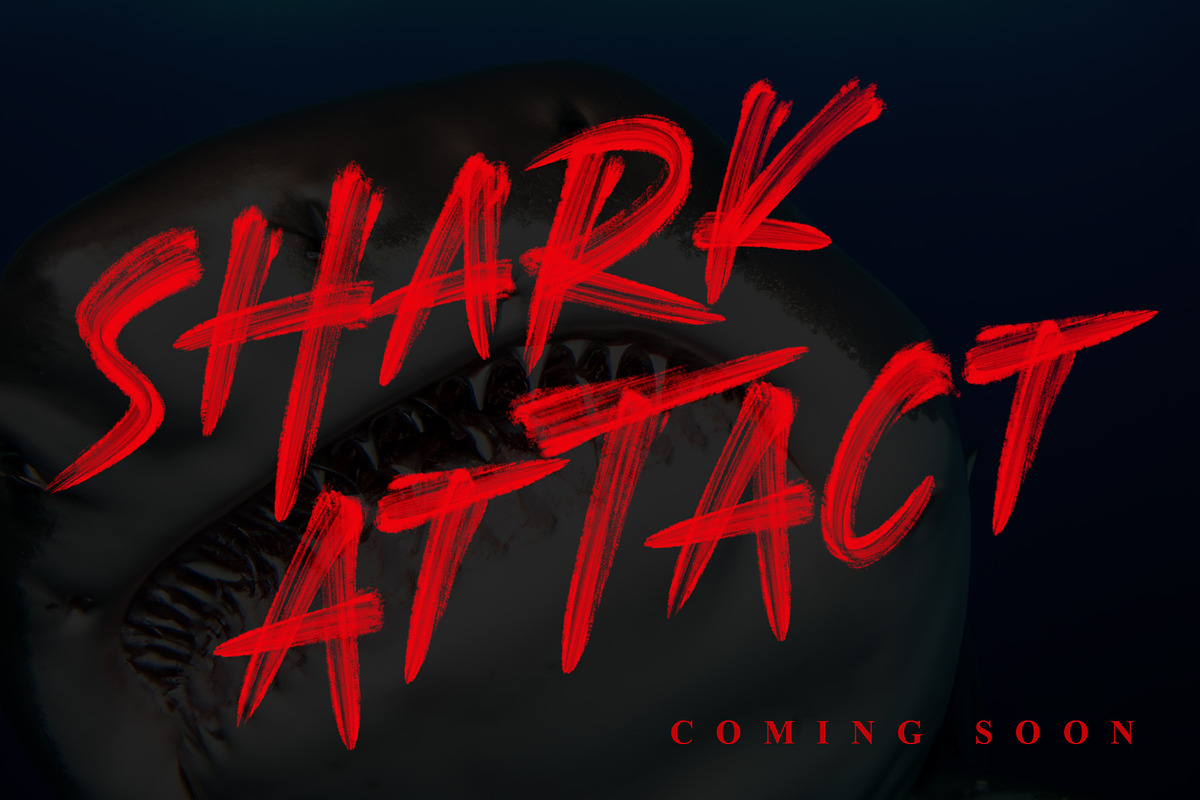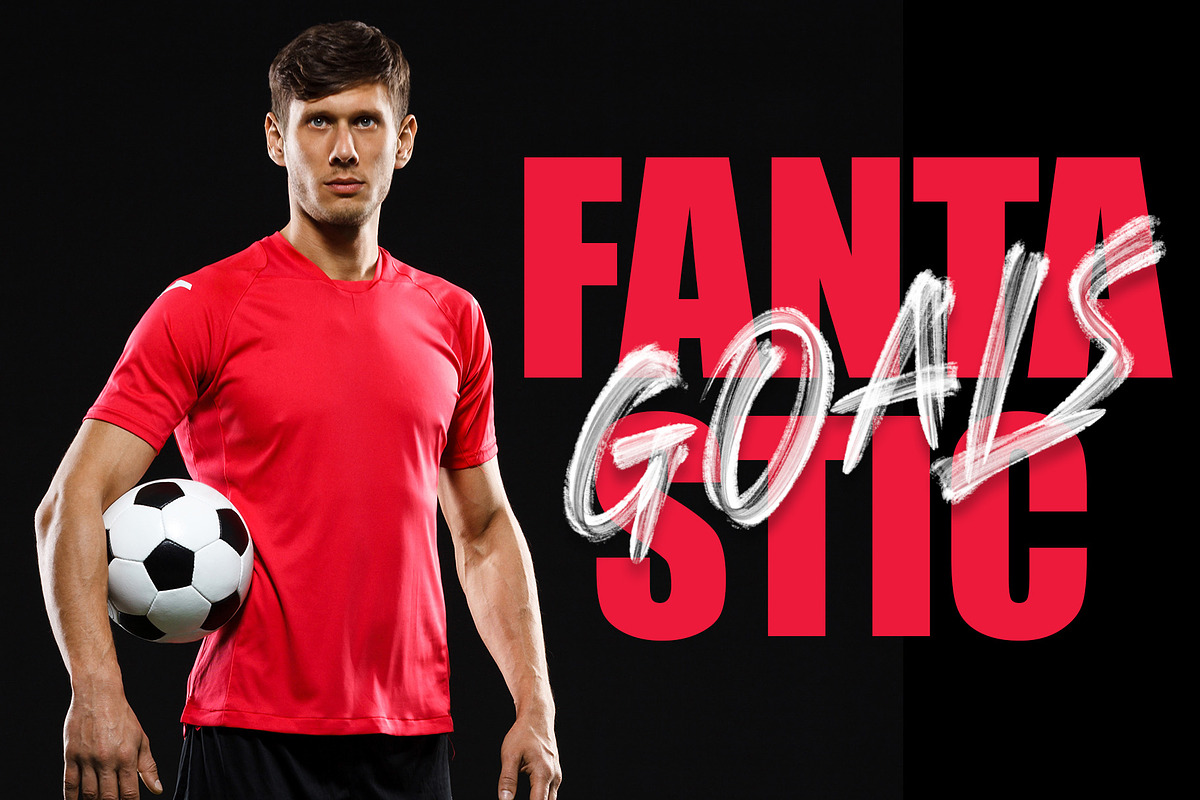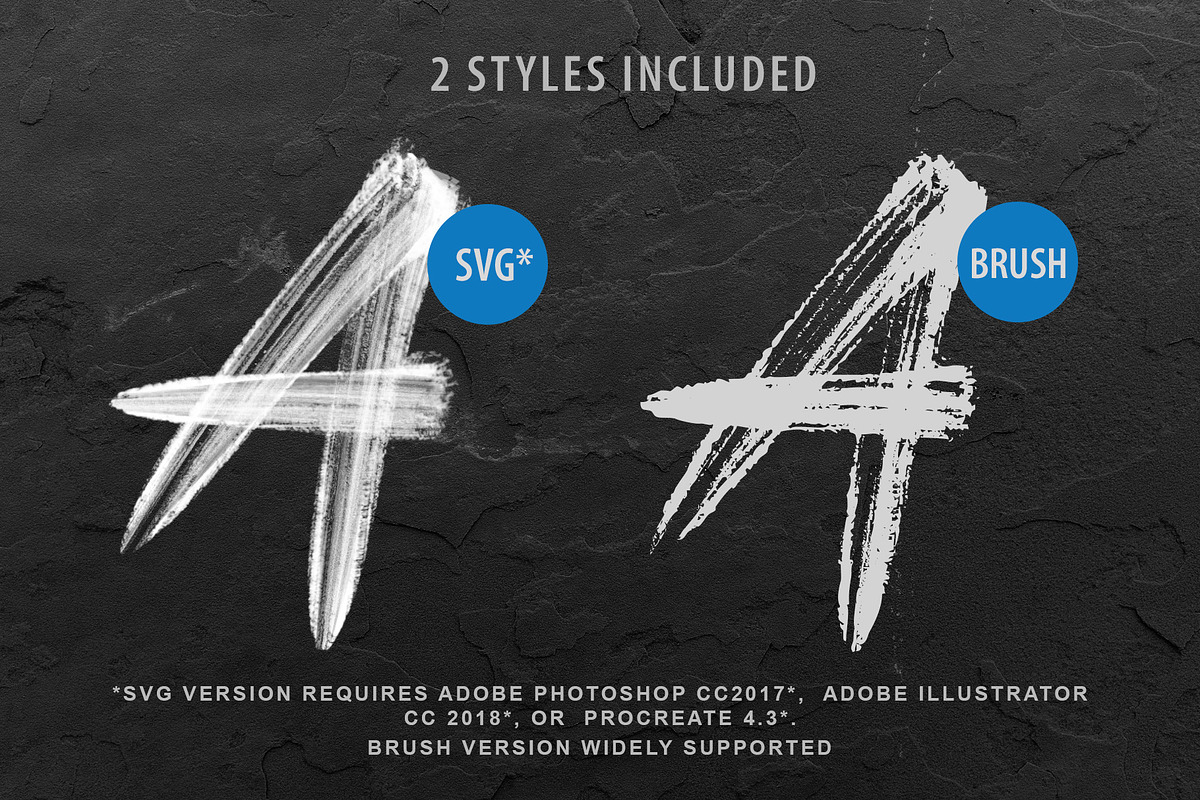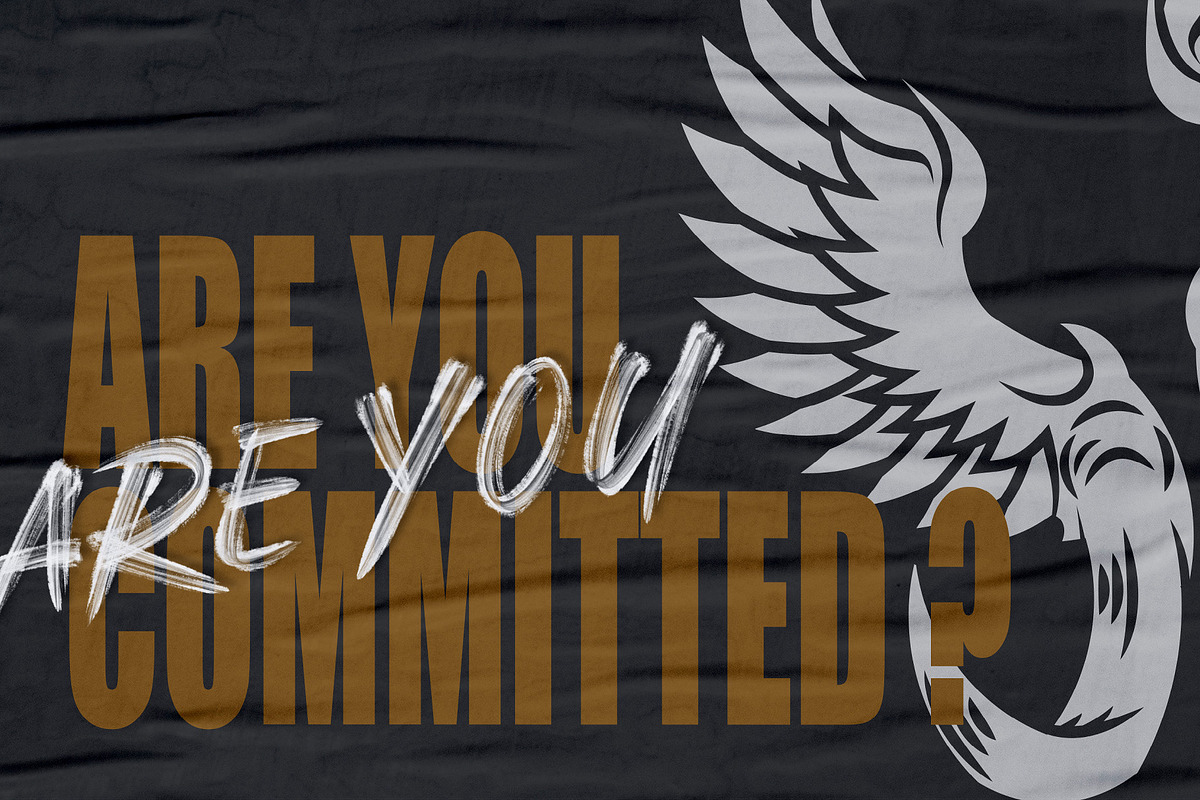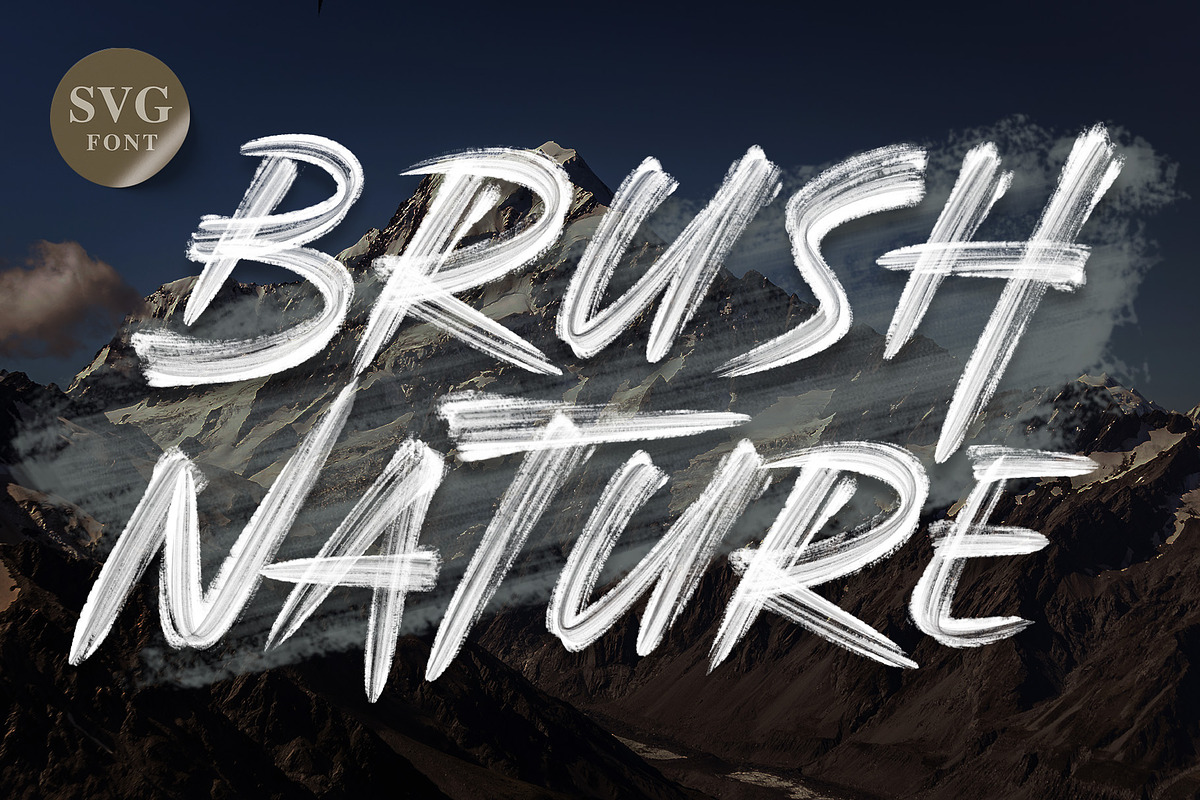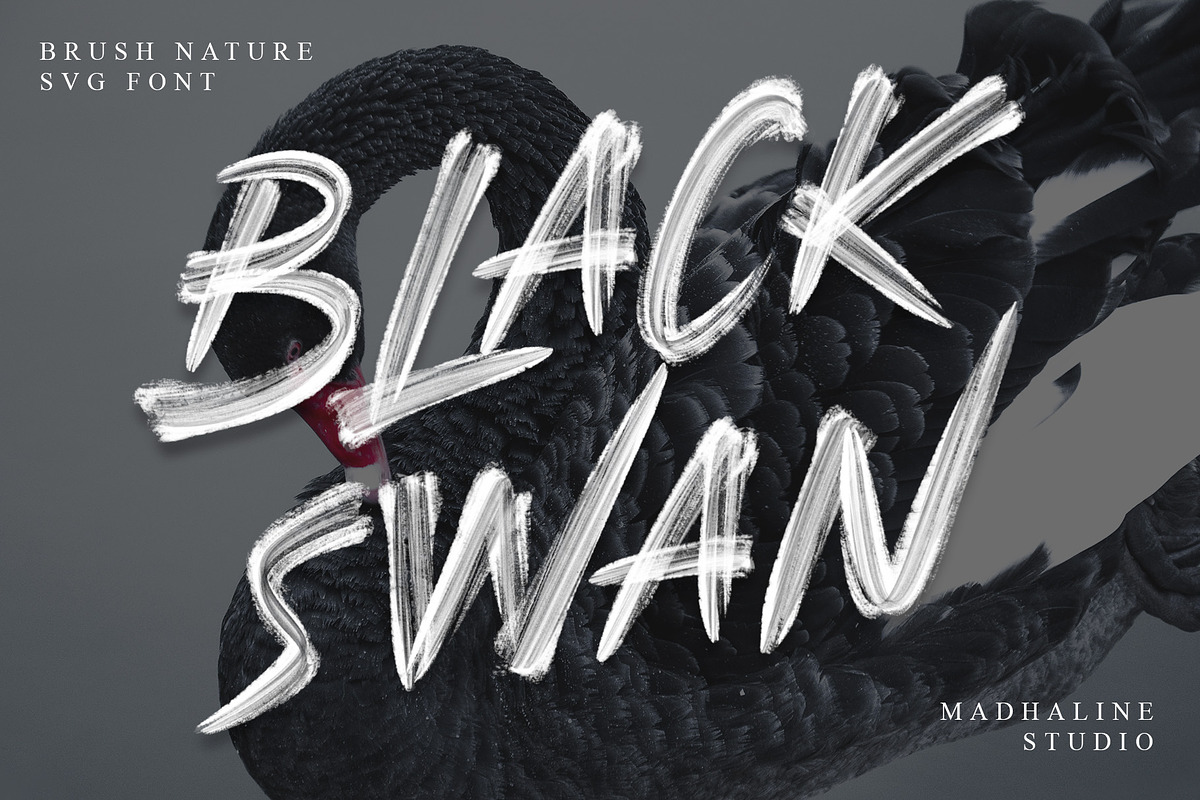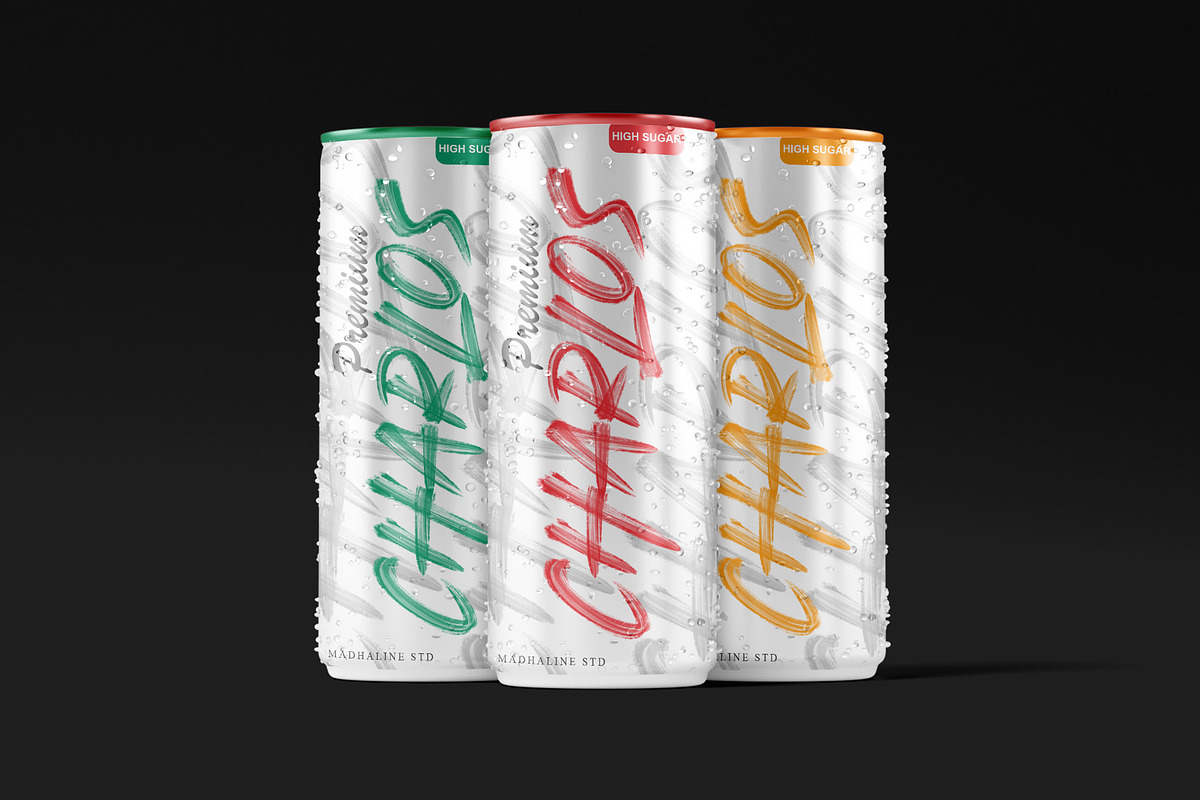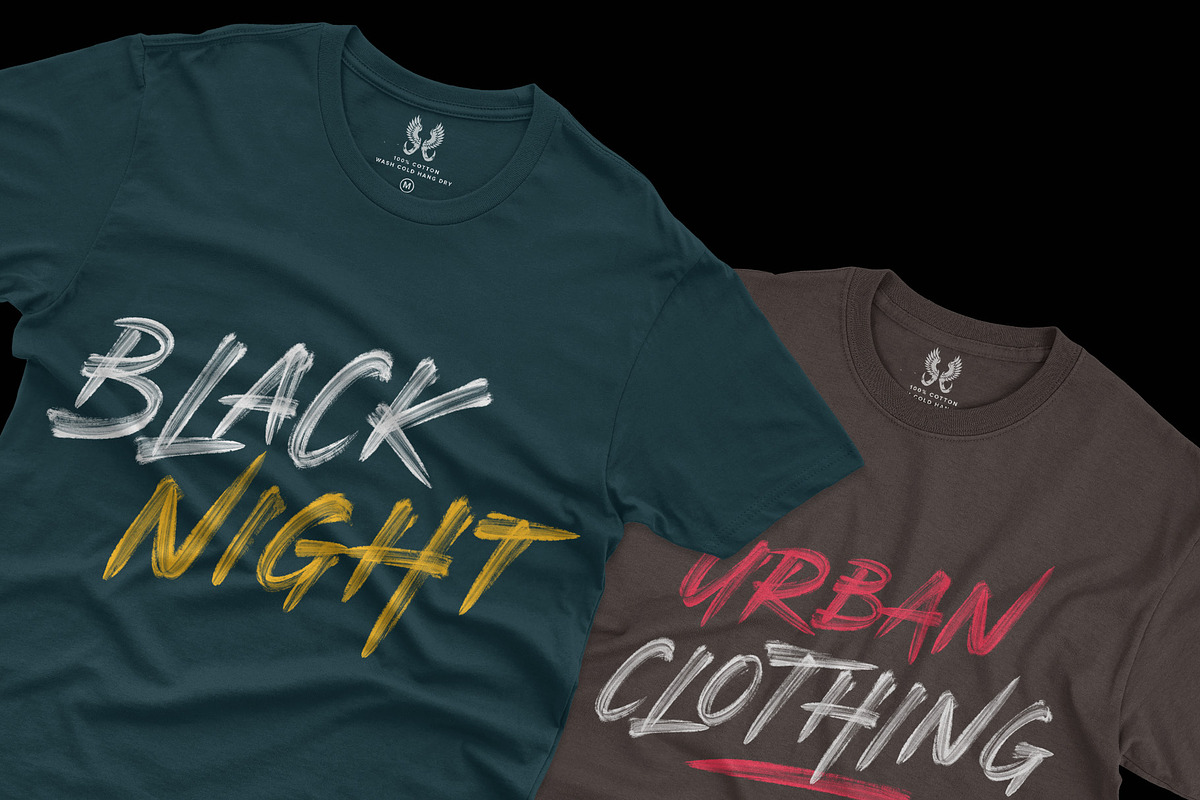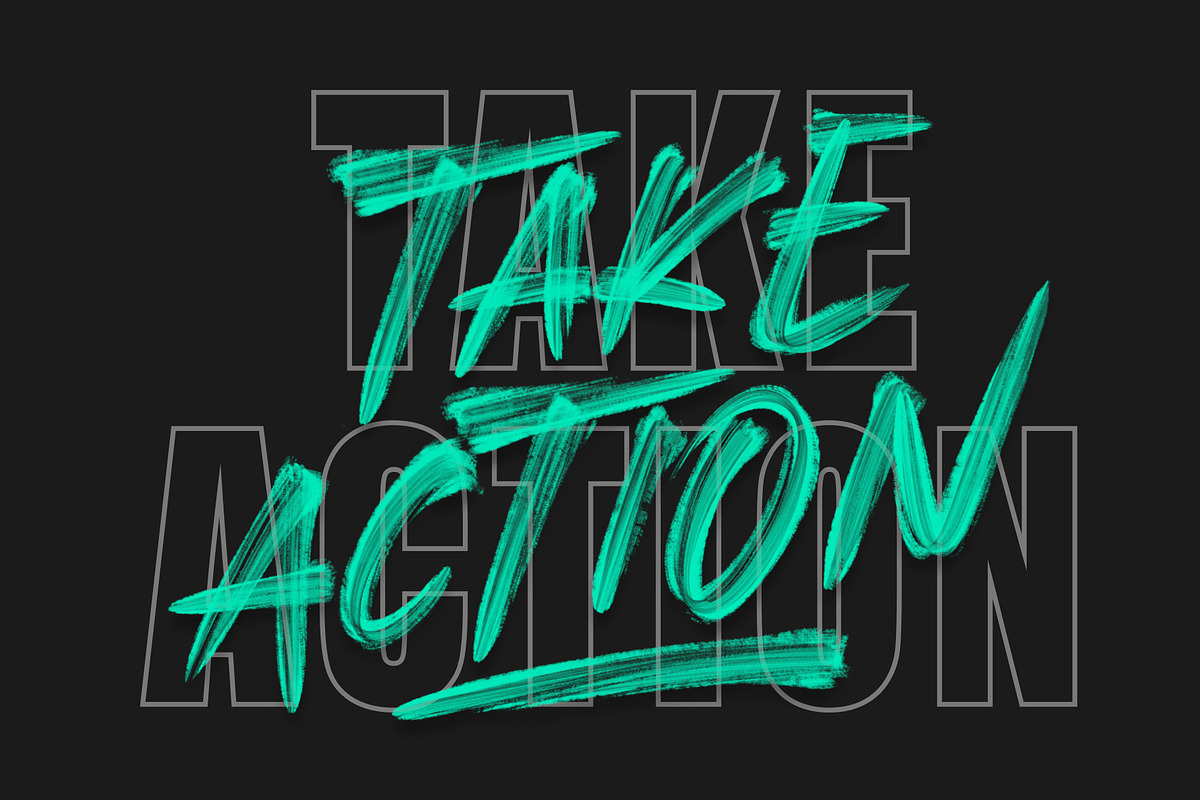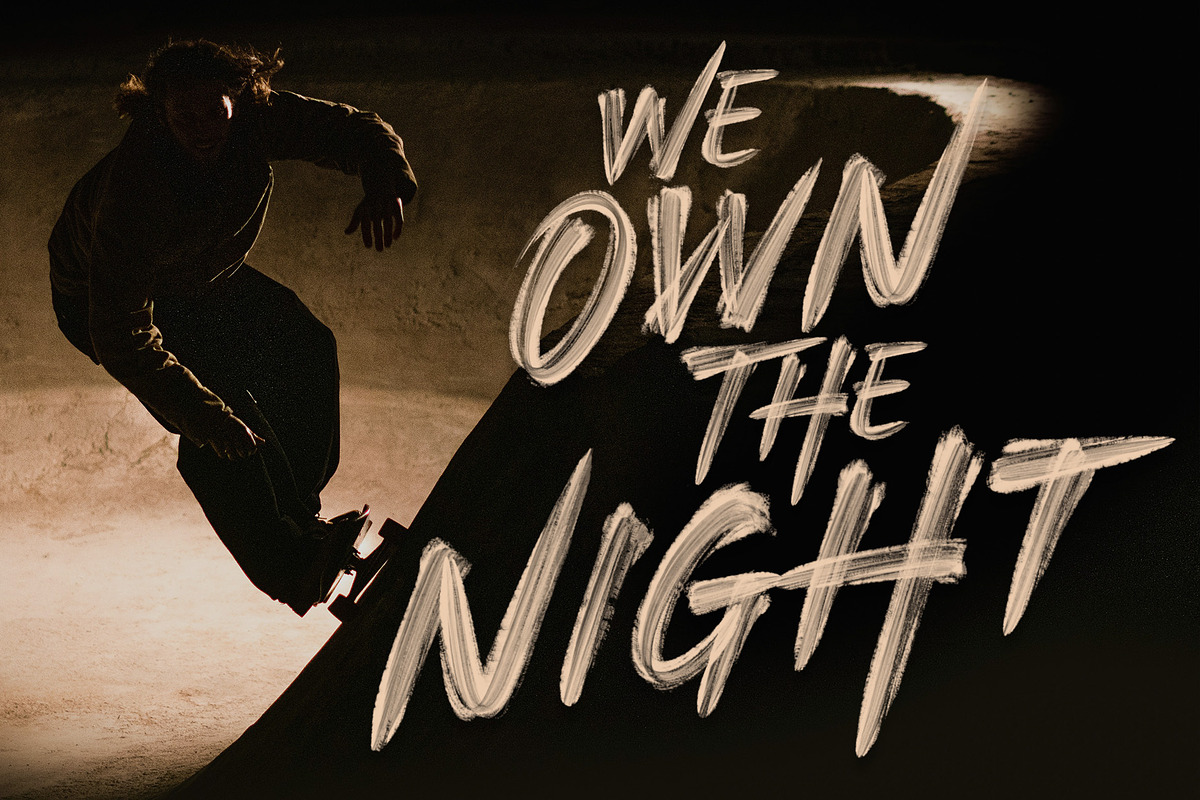
Brush Nature | Realistic Brush SVG
Brush Nature is a handcrafted font, featuring a natural brush style. Created in SVG format, it produces a font with a realistic brush stroke feel.